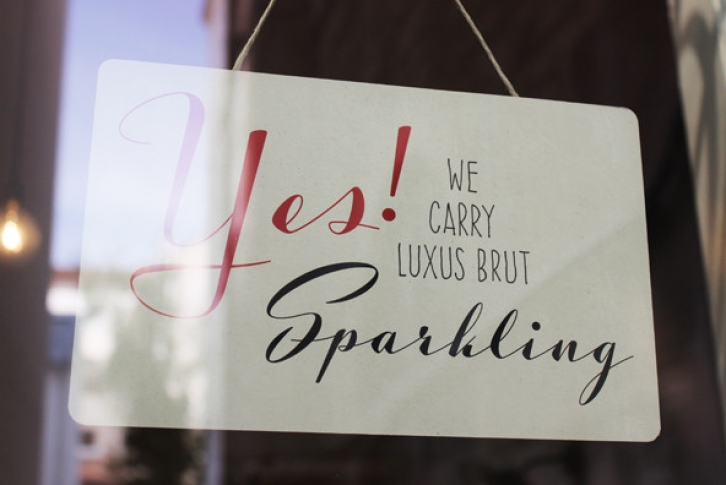
Luxus Brut Sparkling developed from sketches for a bolder version of Luxus Brut (2009) that I made for a poster design.
Interventions like slightly tightening the (still generous) spacing and amplifying the contrast between thick and thin strokes ended in a complete rework of the original font. All the shapes have been redrawn in respect of their distinctive origin in mid 1900’s signage lettering. It has now even more timeless elegance!
For several characters you can choose alternate forms, accessible via two OpenType Stylistic Sets.
Contextually substituted ending forms are available, as well as Numerators, Denominators, Superscript, Subscript and Fraction features, along with and a handful of underlining swashes for your Logotype designs.